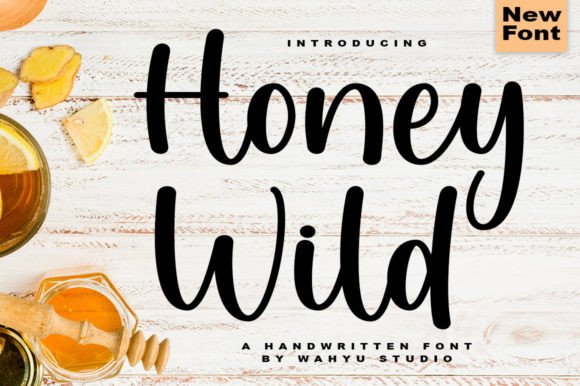
Introducing Honey Wild, a captivating script font that will bring an enchanting touch of elegance to your creative endeavors!
Explore the allure of Honey Wild, a font family that embodies the essence of handwritten beauty, meticulously crafted to evoke an authentic and personal touch in your designs. Let your imagination soar as you discover the endless possibilities that await with this versatile font. From heartfelt greeting cards to bold and captivating headlines, Honey Wild promises to elevate your projects with a touch of genuine warmth and sophistication.
Immerse yourself in the myriad applications of Honey Wild, seamlessly blending into a symphony of creative expressions. Whether you seek to create stunning wedding invitations adorned with delicate swirls, craft heartfelt love letters that whisper sweet nothings, or design eye-catching posters that demand attention, Honey Wild stands ready to fulfill your vision. Its versatility knows no bounds, extending its charm to social media posts, logos, and branding that radiates with a distinct personality.
Let Honey Wild be your font of choice for crafting remarkable branding experiences that leave a lasting impression. Its ability to seamlessly adapt to a diverse array of design styles makes it an invaluable asset for businesses seeking to convey their unique stories and values. From playful and whimsical aesthetics to sleek and sophisticated designs, Honey Wild possesses the versatility to complement a multitude of branding concepts.
Dive into the depths of Honey Wild's charm and discover its ability to add a touch of elegance to any digital or print project. Its meticulously crafted characters, reminiscent of delicate brushstrokes, bring a sense of authenticity and individuality to your creations. Unleash your creativity and let Honey Wild transform your designs into captivating visual masterpieces.